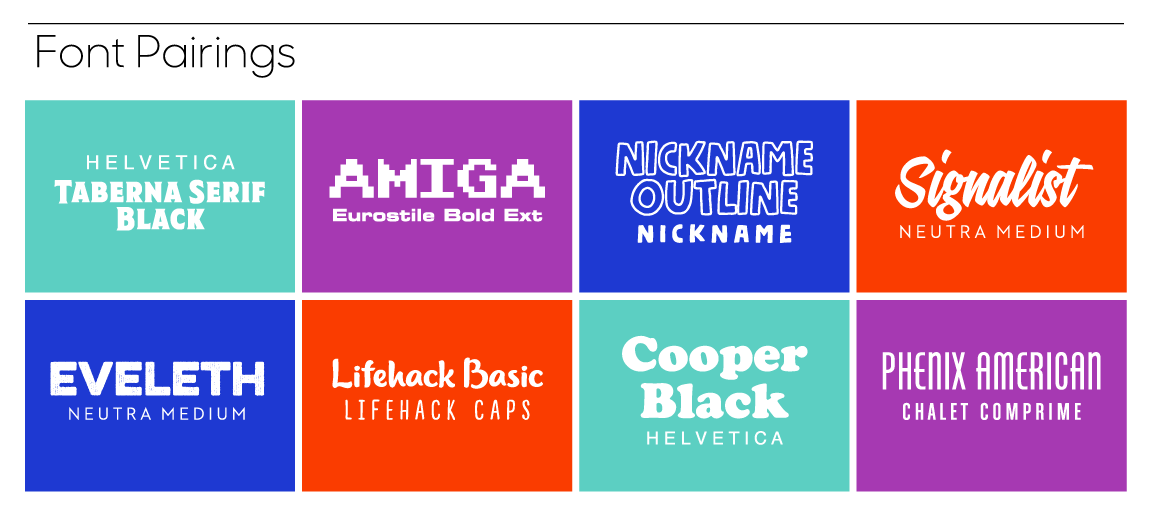
Best Fonts for School T-shirts
Who doesn’t love to show off school pride? Custom Ink’s favorite way to do that is with custom t-shirts! Whether you want tees for every student, or personalized gear for your math club, the right shirt paired with the right fonts is sure to make you stand out.
You might already have a school or club logo, or maybe you need to come up with one, either way, the fonts in our Design Lab can perfectly complement your existing art or create something brand new. To get you started, below are Custom Ink’s recommendations for the best fonts for school t-shirts.
Font Categories
First, a quick lesson on fonts. There are two main font styles: serif and sans serif.- A serif font has short lines at the ends of the letters, making it look less blocky, one of the most popular serif fonts that you might know is Times.
- Sans serif fonts are just that–a font “sans” or without serif. A common sans serif font is Arial.
Our Best Fonts for School Designs
The sky’s the limit when it comes to creating custom gear for your school. No matter what you’re making—shirts, hoodies, banners, magnets, or more—we’ve narrowed down our favorite fonts to include the three main styles we know students and teachers look for: fun + trendy, bold + sporty, and academic. In the graphic below, you’ll see some of our favorite school templates that use our favorite fonts.
12 Fun + Trendy Fonts for School T-shirts
- Amiga
- Aromatica
- Cooper Black
- Drop Dead Gorgeous
- Lifehack Basic
- Lifehack Caps
- Local Brewery
- Nickname
- Nickname Outline
- Salty
- Signalist
- Viva Beautiful
11 Bold + Sporty Fonts for School T-shirts
- Aachen Bold
- All-American Bold
- Bourton Base
- College B
- Eveleth Eroded
- Housebroken
- Taberna Serif Black
- United Ext
- Stencil
- Varsity
- Veneer
11 Academic Fonts for School T-shirts
- American Typewriter Bold
- Birch
- Britannic Bold
- Chalet Comprime Cologne
- Clearface Gothic Bold
- Eames Bold
- Eurostile Bold Ext
- ITC Benguiat
- Paperback Roman
- Phenix American
- Velo
Any Teacher, Parent, or Student Can Elevate a Design with Fonts
Not the art teacher? Not a problem! From teachers and students to parents, these fonts will make your design look extra special. Public, private, and boarding schools alike will find the perfect fonts in our Design Lab. Whether you want a personalized look for your kindergarten 100 days of school celebration or head to toe apparel for senior week, our fonts and products put the power in your hands.Pairing Fonts
Almost as important as choosing a font is pairing multiple fonts. Pairing two unique fonts that complement one another gives your design a polished and professionally-made look. You’ll see in our graphic below some of our favorite school fonts to pair together.
Pairing Nickname Outline with Nickname seems like a smart choice since they’re in a similar family, but they also make for a cohesive look. The headline is fun and bubbly–perfect for your elementary school class–and the subhead nods to the playfulness of the font, but is clear and easy to read for supporting text.
If you’re looking to create something that looks academic but still has some flair, pair Phenix American with Chalet Comprime. Phenix American is an all caps font that’s easy to read, but the rounded edges on the letters and lines that overhang give it more character than a traditional sans serif font. While Chalet Comprime is also an all caps sans serif font, it’s clean and traditional–and having wider kerning, or space between the letters–gives it a styled look.
School T-shirt Fonts FAQ
What are the best fonts for school t-shirts?
It depends on the look you want. Varsity and College B feel sporty, Cooper Black feels fun, and Phenix American feels academic.
How many fonts should I use on one shirt?
Two is usually plenty: one for the headline and one for supporting text, like the pairings shown above.